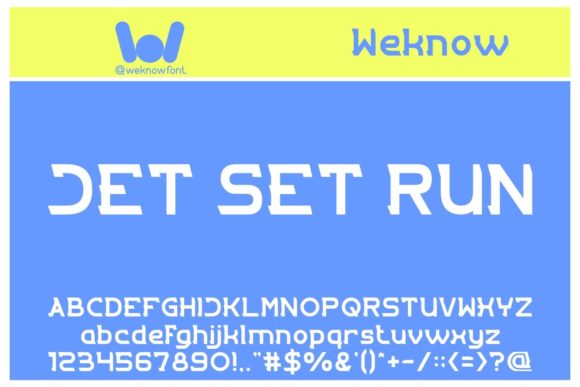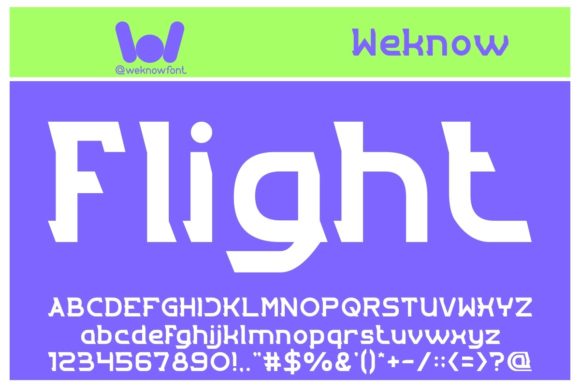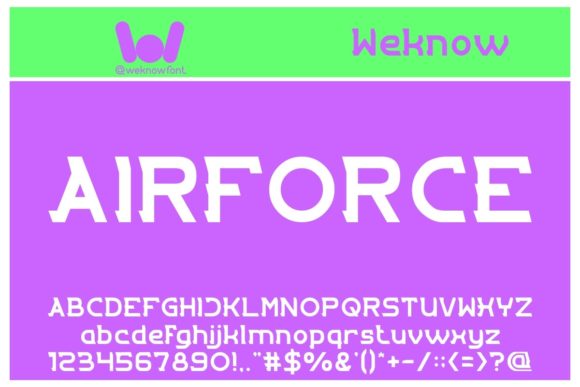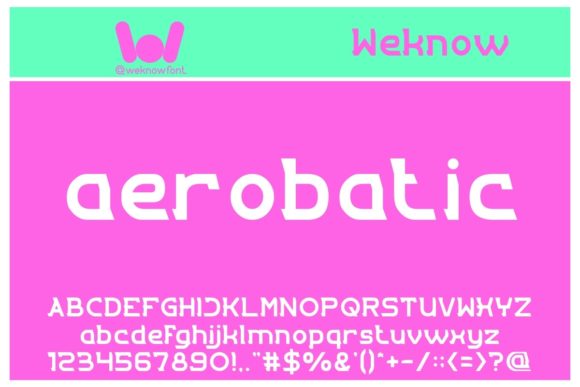
Introduction to Entrance Font
Have you ever found yourself stuck on a creative project, searching for the perfect font to capture the essence of your vision? I know I have. There’s nothing quite like the thrill of discovering a font that takes your design to the next level, and that’s exactly what we’re going to explore today: the Entrance Font.
This cool, bold, and techno-styled display font is a game-changer for designers. With its sleek and modern aesthetic, it’s perfect for logos, headline font, and corporate identity projects. Whether you’re working on a high-quality magazine, book, or comic, the Entrance Font is a valuable resource that can elevate your design to new heights.
Key Features of Entrance Font
- High-quality design resource with a transparent background, ideal for creative projects that require a unique touch.
- Designed to be highly legible, with a clear and crisp font face that’s perfect for headings and titles.
- Perfect for use in creative projects, such as logos, branding materials, and advertising campaigns, where a unique and eye-catching font is required.
Honest Review: Entrance Font
I recently stumbled upon the Entrance Font, and I have to say, it’s been a great addition to my design resource collection. This font is perfect for any creative project that requires a modern and sophisticated touch.
One of the things that works well for Entrance Font is its high quality and crisp design. The font is available for free download, making it an excellent choice for designers on a budget. The transparent background also makes it easy to incorporate into any design without worrying about a distracting background.
Here are some of the features that I like about Entrance Font:
- High-quality design with clean lines and a modern aesthetic ✨
- Limited character set, which may not be suitable for extensive text-based designs ⚠️
- Not as versatile as some other fonts, which may limit its use in certain creative projects ⚠️
Overall, I’m impressed with Entrance Font and would definitely recommend it to designers looking for a high-quality, modern font for their creative projects.
Entrance Font
The Entrance Font is a high-quality, free download design resource perfect for any creative project. This versatile font features a transparent background, making it easy to layer and customize in various design applications.
- Start designing with the Entrance Font, using it to create stunning headlines, titles, and other text elements.
The Entrance Font is perfect for:
- Creating stunning headlines and titles
- Adding a professional touch to your graphics and designs